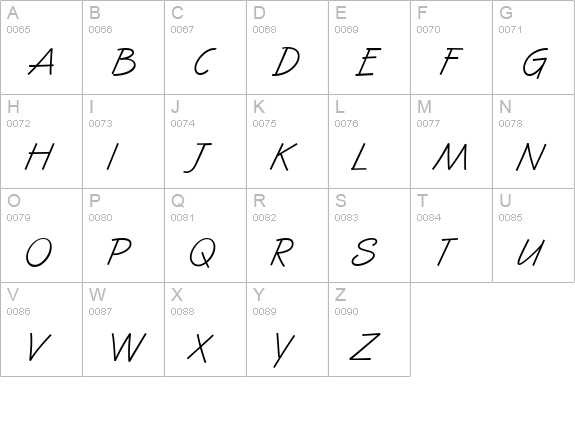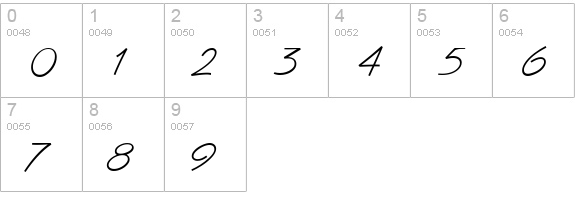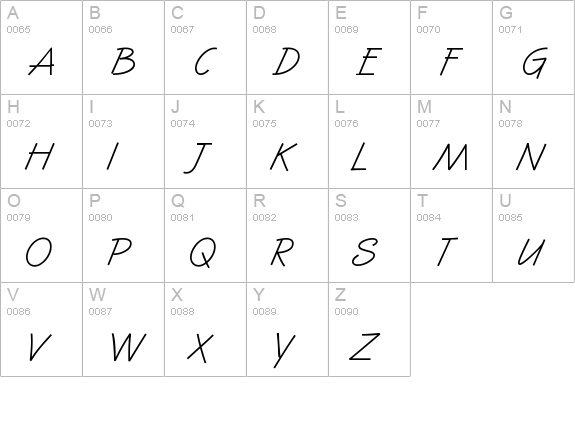
SuccotashHmk font is a charming and versatile typeface that exudes a warm and inviting aesthetic. With its unique blend of modern and retro elements, this font is perfect for a wide range of design projects, from branding to invitations to posters. The soft curves and subtle details of SuccotashHmk give it a friendly and approachable feel that is sure to capture attention. Best of all, SuccotashHmk is completely free to download at FontsMarket.com. Whether you're a seasoned designer looking to add a fresh new font to your collection or a beginner searching for the perfect typeface for your next project, SuccotashHmk is a fantastic choice. Don't miss out on this wonderful font that will bring a touch of whimsy and personality to your designs. Download SuccotashHmk today and let your creativity soar!